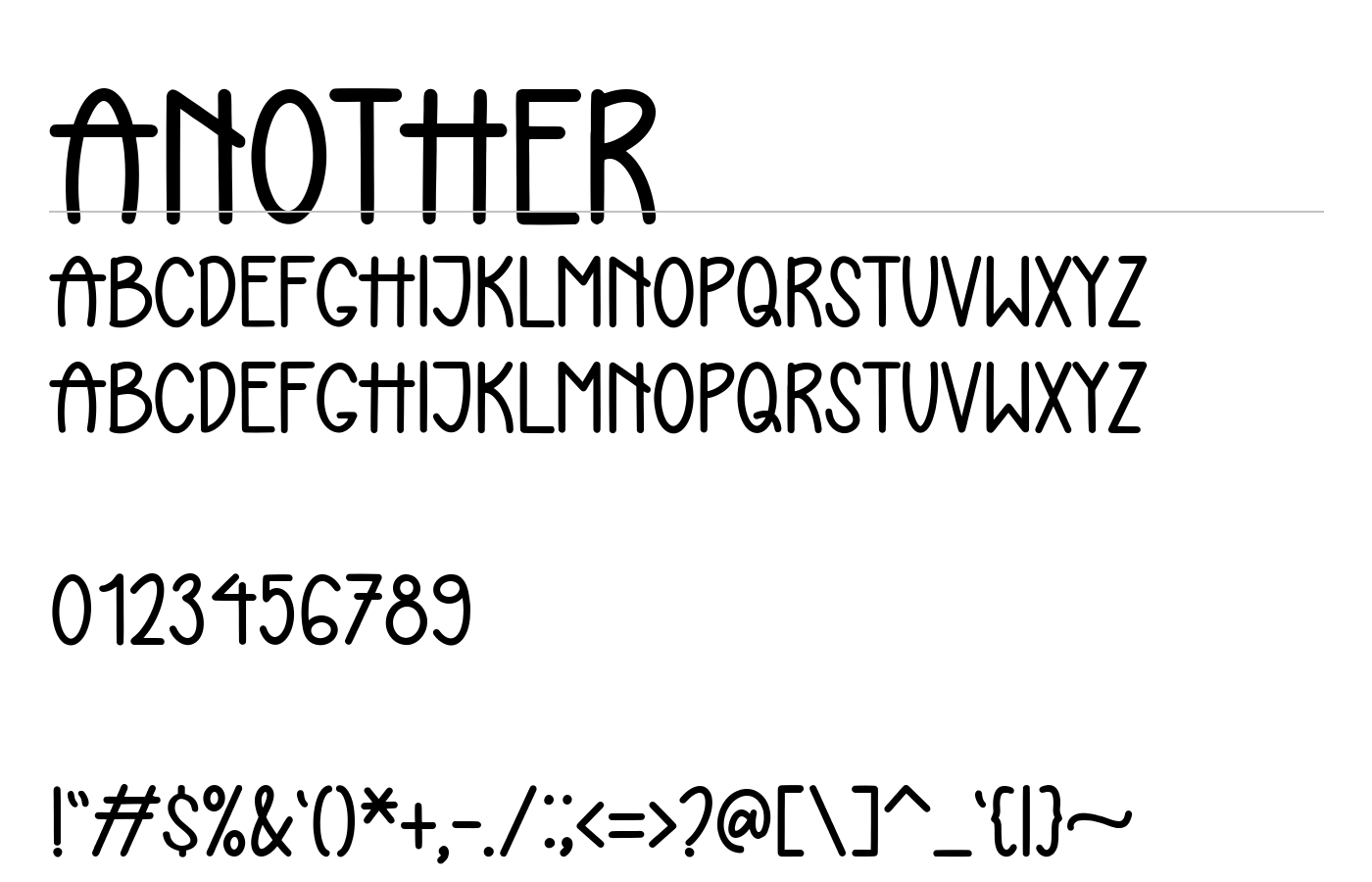
Another Font is a playful, hand-drawn sans serif typeface characterized by tall, narrow letterforms with rounded ends and a casual, friendly feel. Its uneven stroke widths and quirky letter shapes make it perfect for informal designs, children’s books, and creative branding where a lighthearted, approachable tone is desired. This font works well in headlines or short texts that benefit from a unique and personal touch.
Another Font
About Another Font